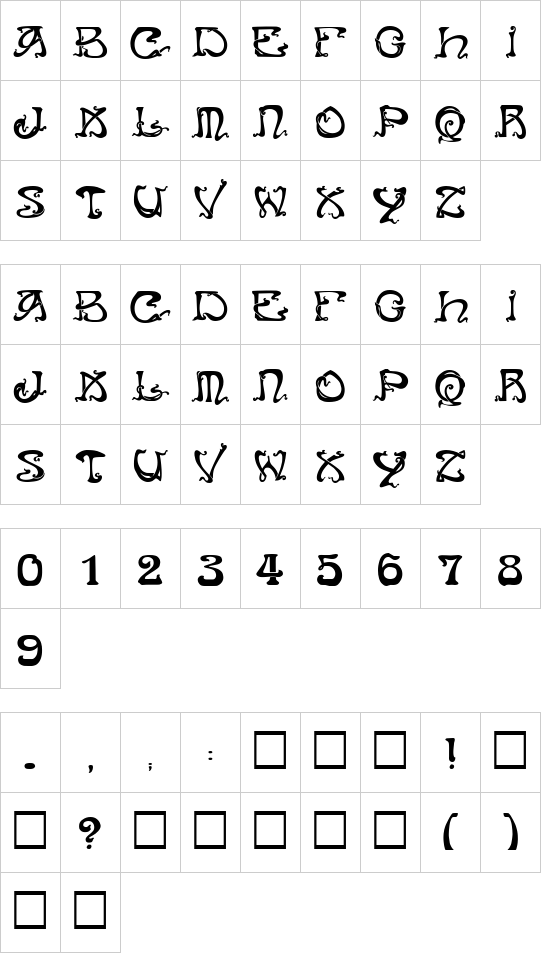
Art Nouveau Caps is a decorative capitals set with curling, organic flourishes drawn from early-1900s ornamentation. The letters bloom with vine-like swells and flowing curves, capturing the elegant, nature-inspired styling of the Art Nouveau period.
Those flowing curls suit boutique logos, vintage poster titles, perfume and cosmetics branding, and elegant invitations. Art Nouveau Caps is free to download as a TrueType file, and you can preview it with your own text to see how the ornamental capitals frame a short title or monogram.